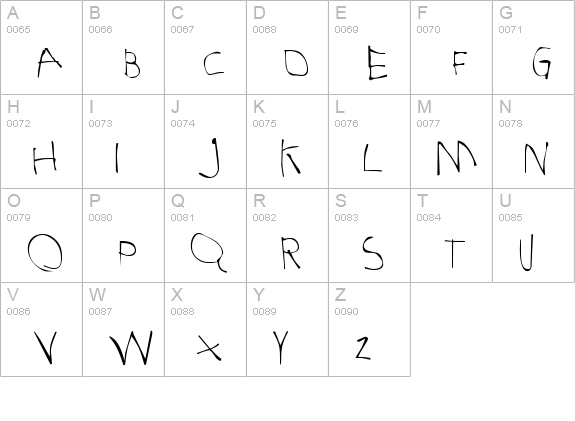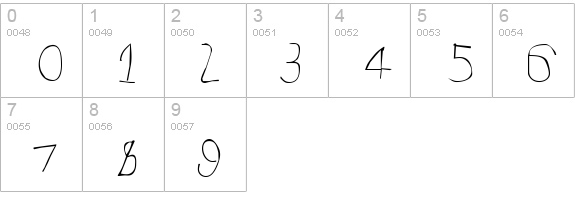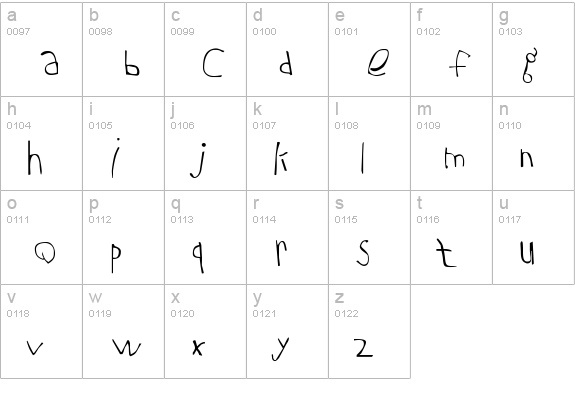
ChildsPlay-AgeFive font is a playful and whimsical typeface that perfectly captures the essence of childhood creativity and imagination. With its fun and quirky design, this font is ideal for a variety of projects aimed at children, such as educational materials, storybooks, and party invitations. The ChildsPlay-AgeFive font features lively and energetic characters that are sure to bring a smile to anyone's face. Its charming and childlike appearance makes it a great choice for adding a touch of fun and whimsy to your designs. Best of all, ChildsPlay-AgeFive font is available for free download at FontsMarket.com. So unleash your inner child and let your creativity run wild with this delightful font that is sure to add a playful touch to any project.